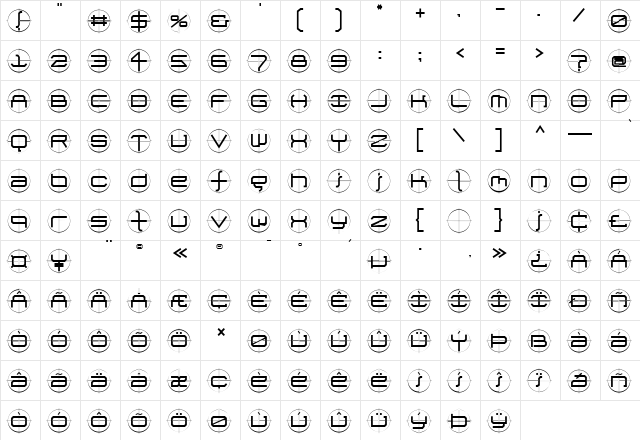
FutureKill Medium
Design Context for FutureKill Typeface
FutureKill has a distinctly futuristic character, with geometric precision and clean angles that feel at home in technology, gaming, and sci-fi contexts.